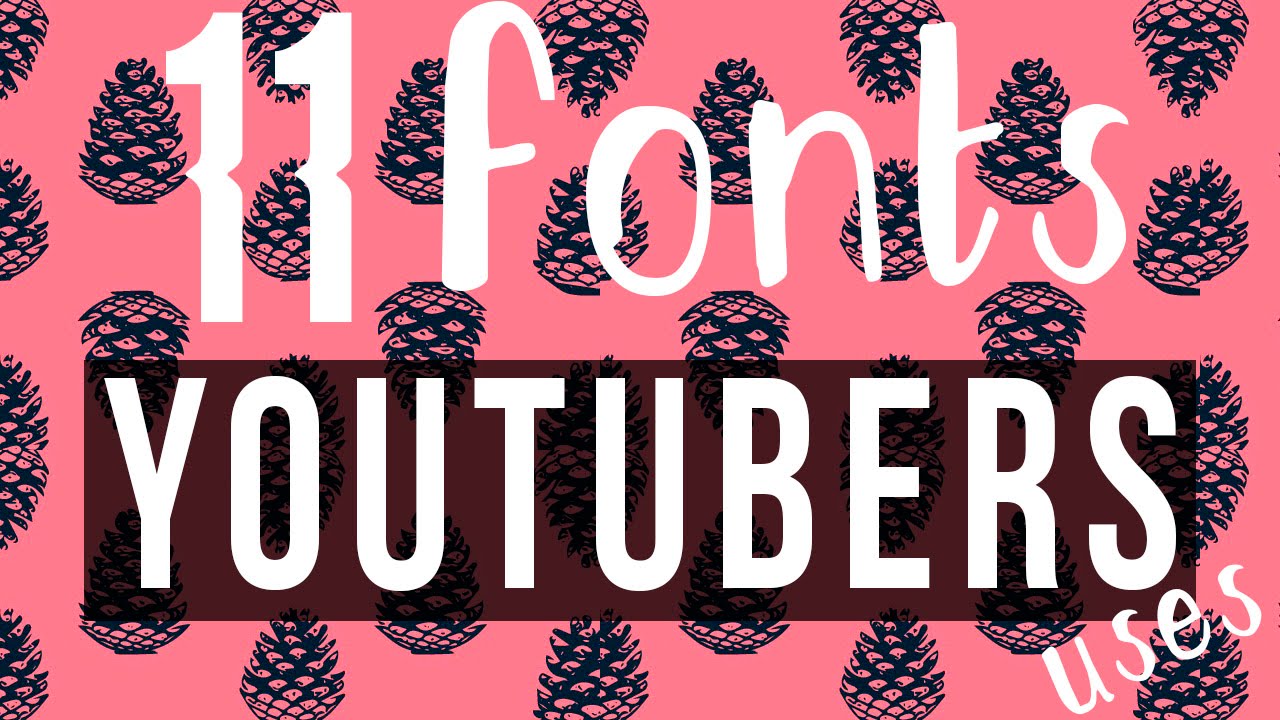
11popular Fonts Youtubers Use Youtube
Best Fonts Youtube Have a look at some of the most popular fonts that you can use to make your thumbnails pop: 1. bebas neue is a sleek and clean sans‑serif font that is impossible to ignore, even on small mobile screens. it’s all‑caps with a narrow style, which makes it much more powerful to convey urgency. High quality fonts for rs. supported apps: adobe xd, adobe premiere pro, adobe photoshop, adobe illustrator, final cut pro and others.
Popular Fonts Youtubers Use Youtube Looking for the best fonts for thumbnails and banners? explore 28 bold, modern, and stylish font options to make your channel stand out in 2026. Welcome to my little corner! in this video i share with you 40 popular and aesthetic fonts that rs use. Allows you to choose a screen from your video as your thumbnail or create a customized one. but, even if you have the best background for your video thumbnail or banner, choosing a complimenting font can be tricky. here are 25 best fonts for thumbnails and banners. Explore the 13 best fonts for thumbnails and banners in 2025. learn how to choose fonts that boost clicks, views, and subscriber growth.
11popular Fonts Youtubers Use Youtube Allows you to choose a screen from your video as your thumbnail or create a customized one. but, even if you have the best background for your video thumbnail or banner, choosing a complimenting font can be tricky. here are 25 best fonts for thumbnails and banners. Explore the 13 best fonts for thumbnails and banners in 2025. learn how to choose fonts that boost clicks, views, and subscriber growth. Find 25 best fonts for rs in 2025 to make your videos pop. these fonts are great for thumbnails, logos, & brands to attract more viewers. Discover the top fonts for rs in 2024. enhance your videos with the perfect font to match your style and audience engagement. But there’s one factor many rs overlook—using the right fonts. the font you choose for your thumbnails and videos plays a huge role in making your content more engaging and appealing . In a competitive market like , it’s important to do what you can to stand out from the crowd. and a great font can help you do just that. in this article, we list 34 of the best fonts in 2025. all the fonts below are available from envato elements (our review).
Fonts Youtubers Use Youtube Find 25 best fonts for rs in 2025 to make your videos pop. these fonts are great for thumbnails, logos, & brands to attract more viewers. Discover the top fonts for rs in 2024. enhance your videos with the perfect font to match your style and audience engagement. But there’s one factor many rs overlook—using the right fonts. the font you choose for your thumbnails and videos plays a huge role in making your content more engaging and appealing . In a competitive market like , it’s important to do what you can to stand out from the crowd. and a great font can help you do just that. in this article, we list 34 of the best fonts in 2025. all the fonts below are available from envato elements (our review).
40 Popular Fonts Youtubers Use Youtube But there’s one factor many rs overlook—using the right fonts. the font you choose for your thumbnails and videos plays a huge role in making your content more engaging and appealing . In a competitive market like , it’s important to do what you can to stand out from the crowd. and a great font can help you do just that. in this article, we list 34 of the best fonts in 2025. all the fonts below are available from envato elements (our review).